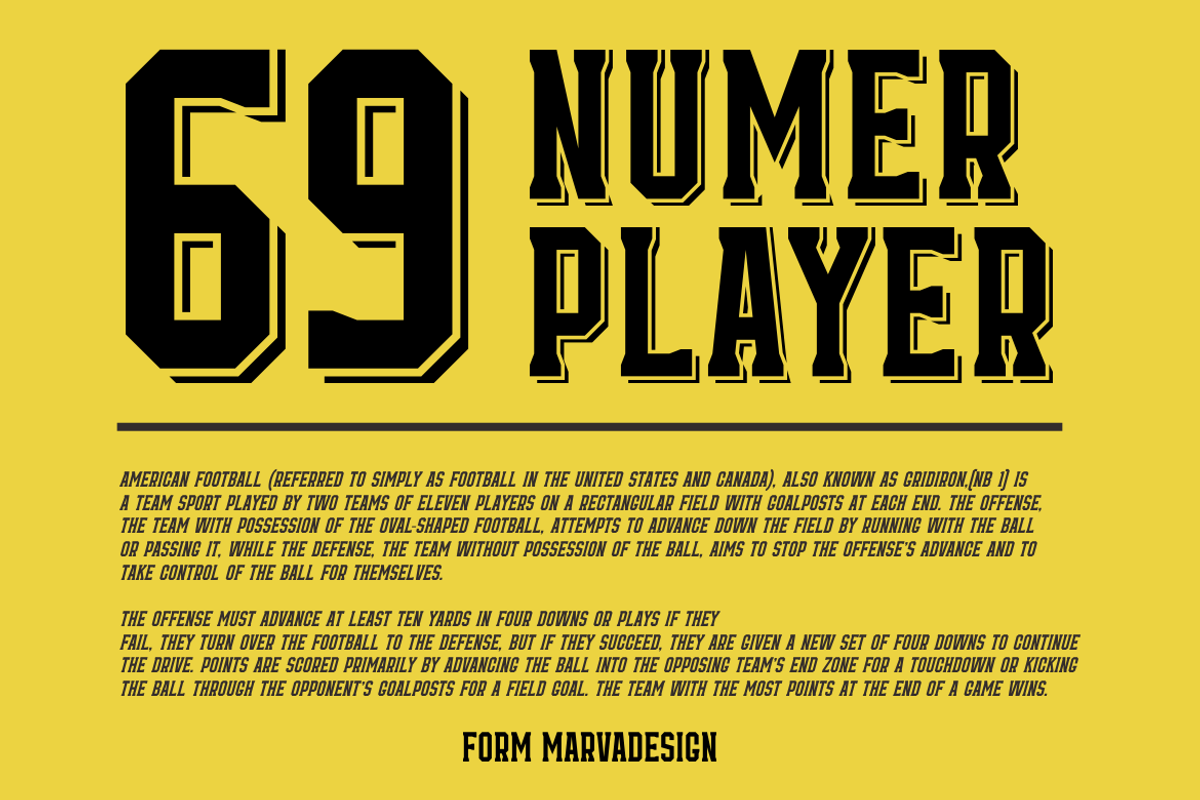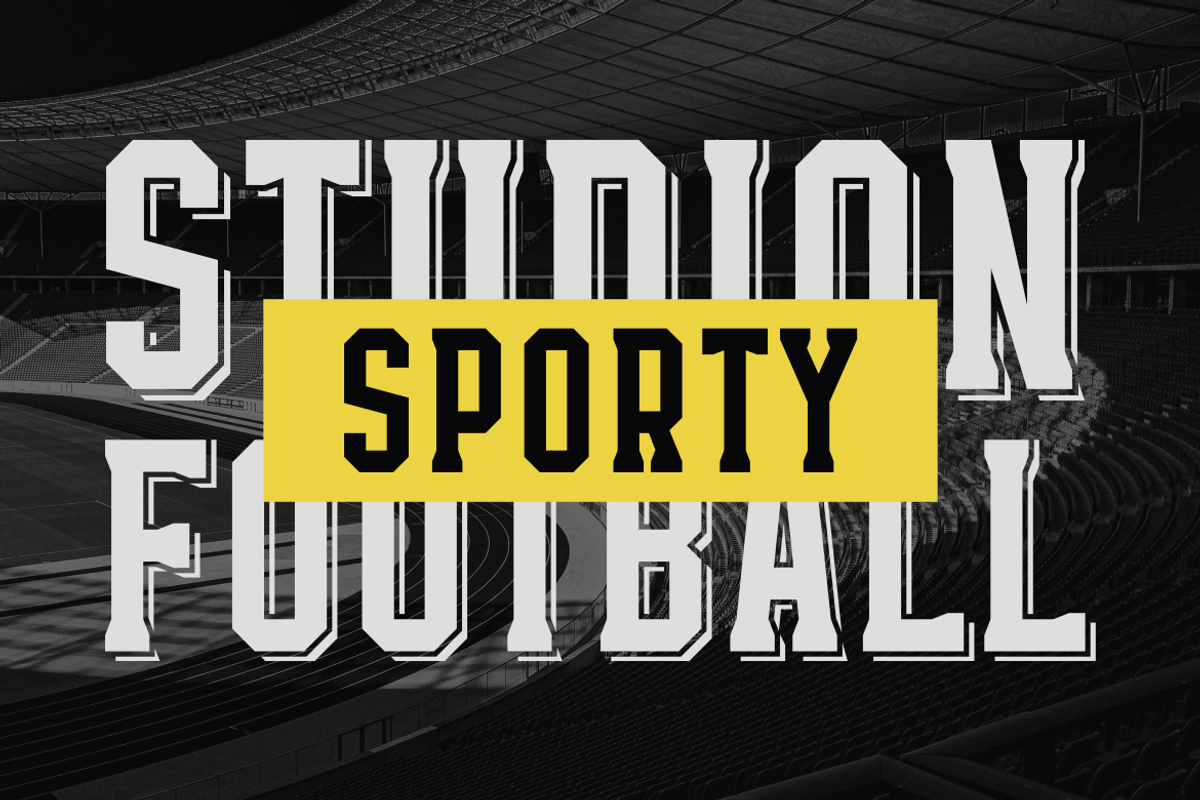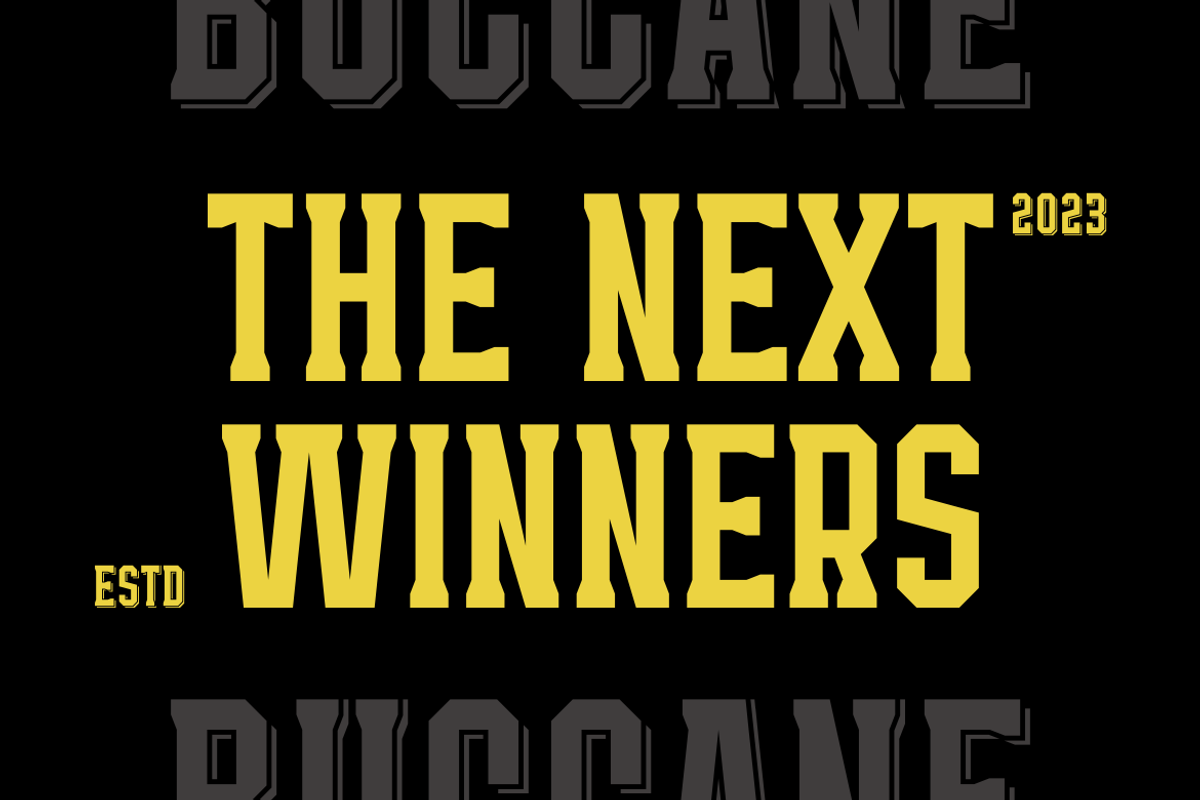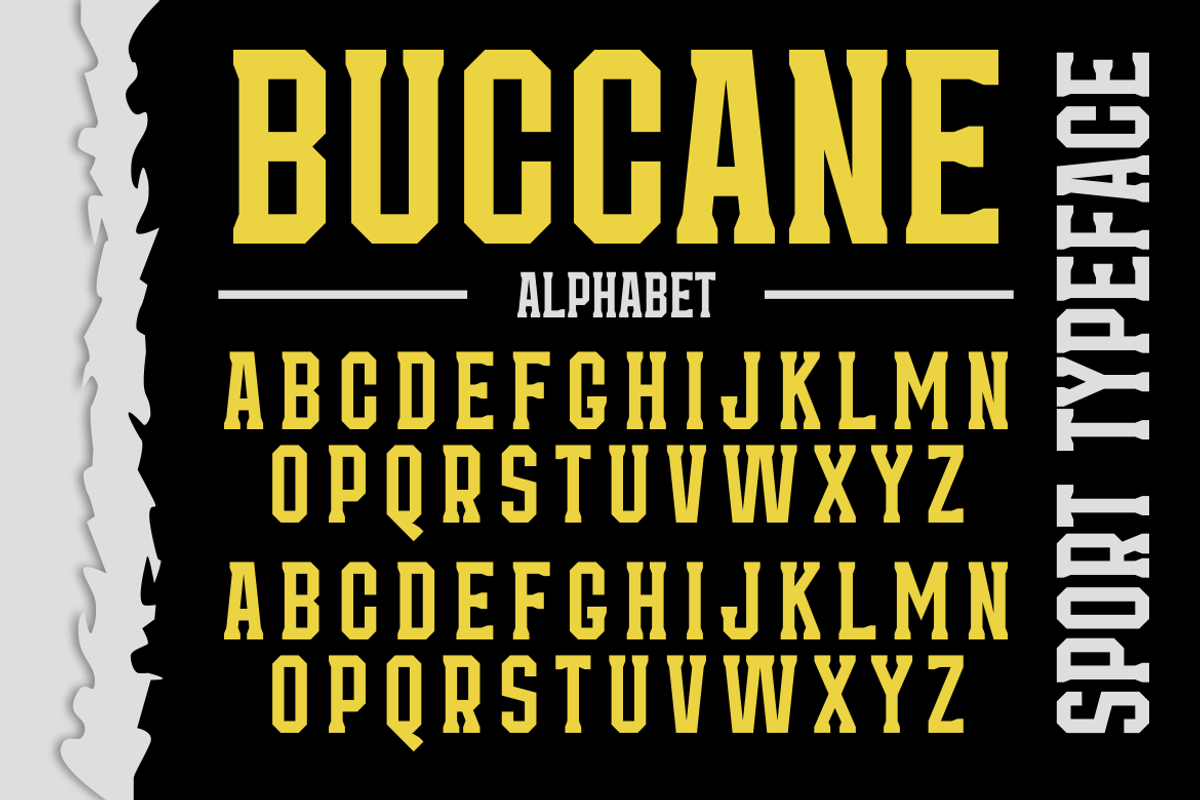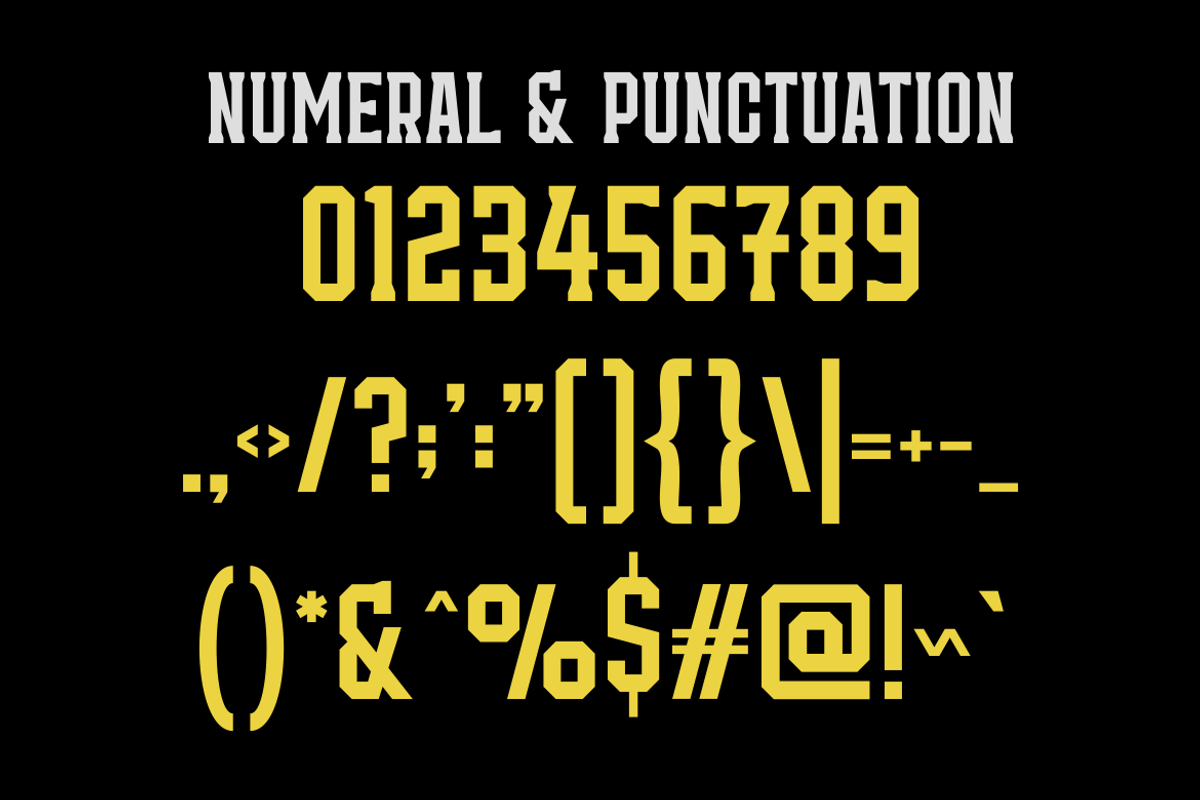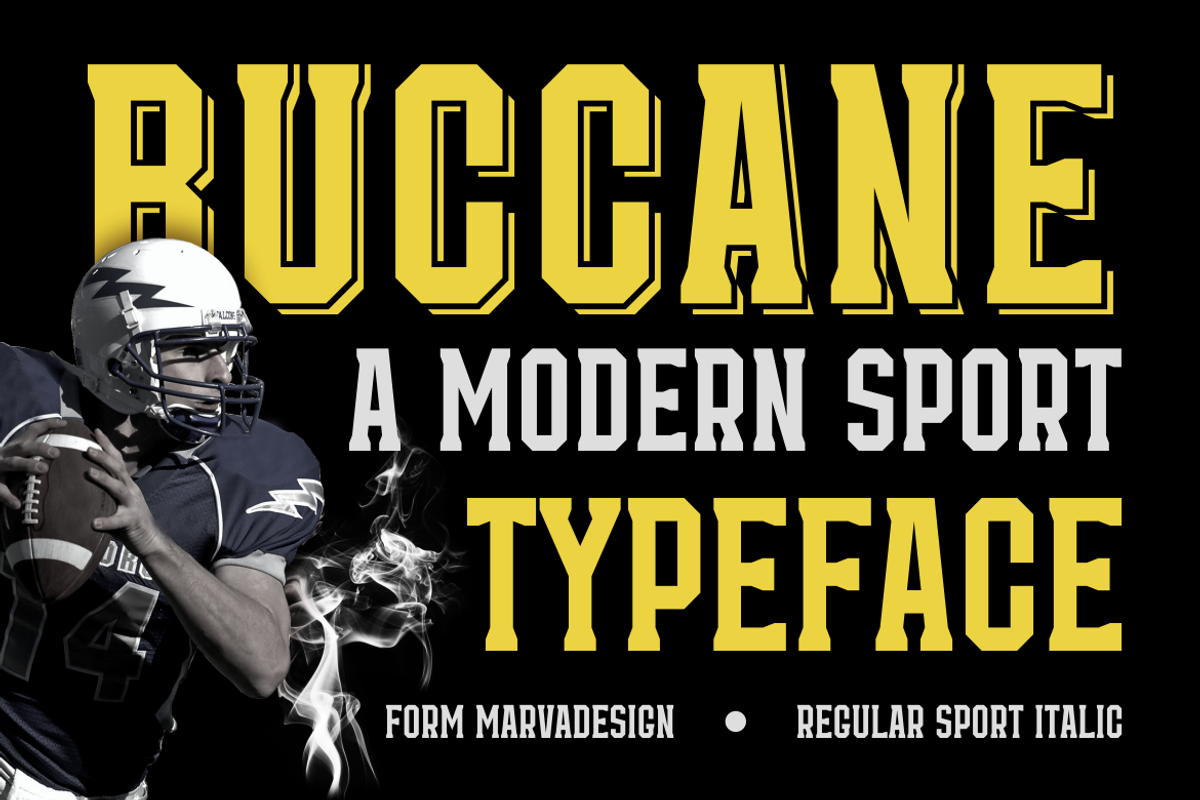
Buccane - A Modern Sport Font
Introducing our new product Buccane Font - Modern Font Buccane Font** - Modern Font is a bold and authentic display font. The font is suitable for any branding project like logo,Template Design, Product and many more. outstanding in a wide range of contexts.
- Regular, Sports, Italic